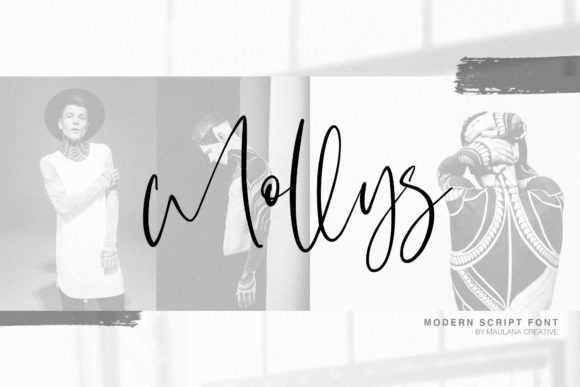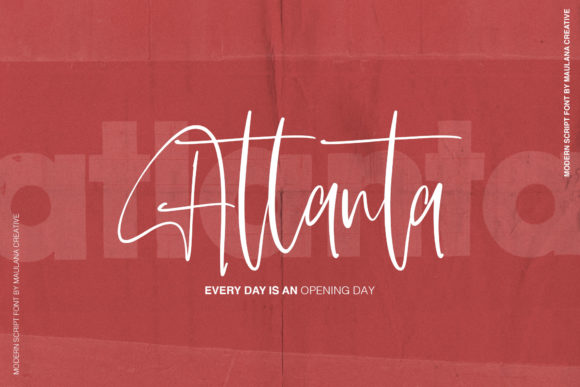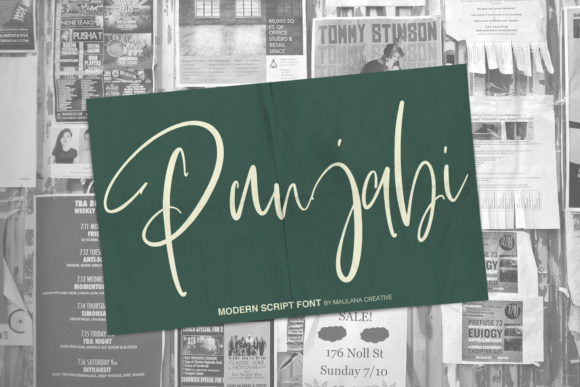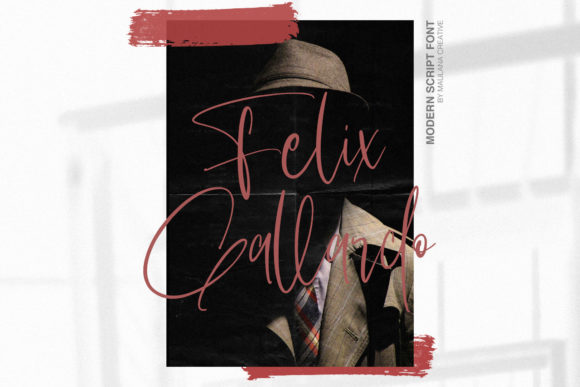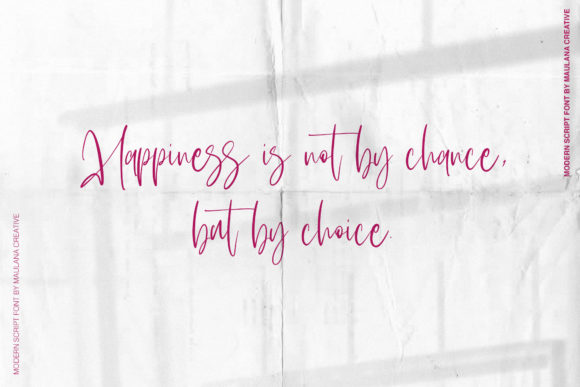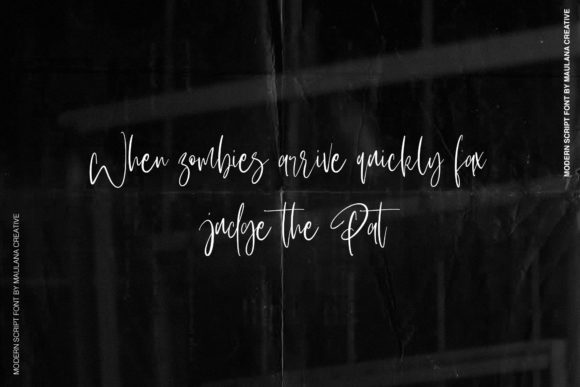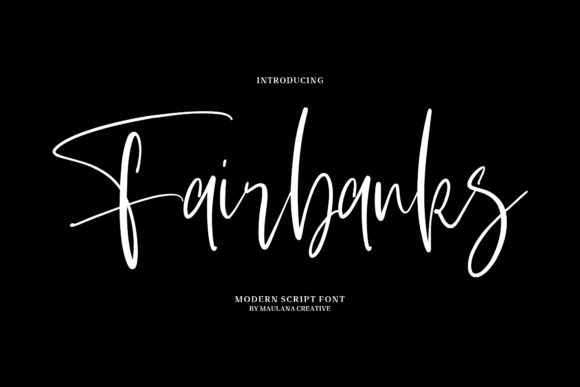
Discover the Charm of Fairbanks Font: Elevate Your Designs with a Handcrafted Touch
Are you looking for a font that can add a personal touch to your designs? Look no further than Fairbanks Font. This stunning script font is perfect for giving your creations an authentic, handcrafted feel that’s sure to capture the attention of your audience. With its unique and elegant style, Fairbanks Font is versatile enough to be used in a wide range of design applications, from stationery and logos to website headers and packaging design.
The Characteristics of Fairbanks Font
Fairbanks Font is a beautifully crafted script font that boasts a range of characteristics that make it perfect for designers and crafters. Some of its key features include:
• Handcrafted feel: Fairbanks Font has a unique, handcrafted feel that’s perfect for designers who want to add a personal touch to their creations.
• Elegant style: With its flowing lines and elegant curves, Fairbanks Font is perfect for creating sophisticated and stylish designs.
• Versatility: Fairbanks Font can be used in a wide range of design applications, from stationery and logos to website headers and packaging design.
• Authentic look: Fairbanks Font has an authentic, handcrafted look that’s sure to add a touch of personality to your designs.
Uses for Fairbanks Font
Fairbanks Font is a versatile font that can be used in a wide range of design applications. Here are some of the ways you can use Fairbanks Font to elevate your designs:
• Stationery: Use Fairbanks Font to create beautiful and elegant stationery, including letterheads, envelopes, and greeting cards.
• Logos: Fairbanks Font is perfect for creating unique and memorable logos that will help your brand stand out.
• Typography quotes: Use Fairbanks Font to create stunning typography quotes that will add a touch of elegance to your designs.
• Magazine or book covers: Fairbanks Font is perfect for creating eye-catching magazine or book covers that will grab the attention of your audience.
• Website headers: Use Fairbanks Font to create beautiful and elegant website headers that will add a touch of personality to your website.
• Clothing: Fairbanks Font can be used to create unique and stylish clothing designs, including t-shirts, hoodies, and more.
• Branding: Fairbanks Font is perfect for creating consistent and recognizable branding across all of your marketing materials.
• Packaging design: Use Fairbanks Font to create eye-catching and unique packaging designs that will help your products stand out.
Why Choose Fairbanks Font?
So why should you choose Fairbanks Font for your design projects? Here are just a few reasons:
• Unique and elegant style: Fairbanks Font has a unique and elegant style that’s sure to add a touch of personality to your designs.
• Versatility: Fairbanks Font can be used in a wide range of design applications, making it a great addition to any designer’s toolkit.
• High-quality design: Fairbanks Font is a high-quality font that’s been carefully crafted to ensure that it looks great in any design application.
Fairbanks Font is a stunning script font that’s perfect for giving your designs an authentic, handcrafted feel. With its unique and elegant style, Fairbanks Font is versatile enough to be used in a wide range of design applications, from stationery and logos to website headers and packaging design. Whether you’re a designer or crafter, Fairbanks Font is a great choice for anyone looking to add a personal touch to their creations. So why wait? Download Fairbanks Font today and start elevating your designs with a handcrafted touch!